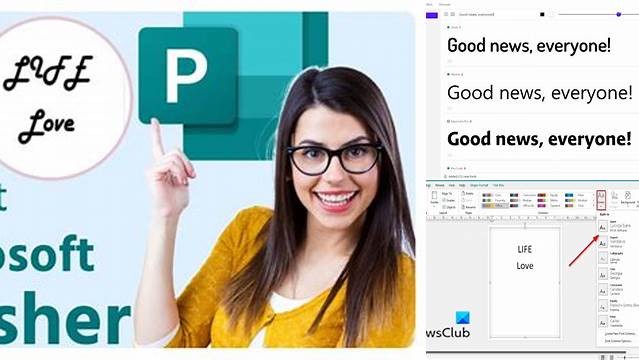
Add Fonts To Publisher On Windows 10: A Simple Guide
Hey guys! Ever felt like your Publisher documents are missing that extra oomph? Maybe the default fonts just aren't cutting it for your creative vision? Well, you're in the right place! In this guide, we're going to dive deep into how to add fonts to Publisher on Windows 10, so you can make your projects truly shine. We'll cover everything from finding the perfect fonts to installing them correctly and using them in your Publisher documents. Trust me, it's easier than you think!
Why Add Fonts to Publisher?
Before we jump into the how, let's talk about the why. Why even bother adding fonts to Publisher? Well, fonts are a crucial element of design. They set the tone, convey emotions, and can significantly impact the readability and overall aesthetic of your documents. Think about it: a playful, handwritten font might be perfect for a party invitation, while a clean, professional sans-serif font is better suited for a business report. By expanding your font library, you gain the power to:
- Express your creativity: A wider selection of fonts means more freedom to experiment and find the perfect match for your project's style and message.
- Enhance readability: Choosing the right font can make your text easier to read and understand, improving the overall user experience.
- Create visual hierarchy: Different fonts can be used to emphasize headings, subheadings, and body text, creating a clear visual structure.
- Maintain brand consistency: Using specific fonts across all your marketing materials helps reinforce your brand identity and create a cohesive look.
- Add a personal touch: Unique fonts can help your documents stand out from the crowd and reflect your personality or brand's unique voice.
In short, adding fonts to Publisher is like giving yourself a design superpower! You'll be able to create more visually appealing, professional-looking documents that truly capture your vision. Now, let's get down to the nitty-gritty and learn how to actually do it.
Finding the Perfect Fonts: Your Font Hunting Adventure
Okay, so you're ready to expand your font horizons. Awesome! But where do you even begin? The world of fonts is vast and varied, with countless options to choose from. It can feel a bit overwhelming, but don't worry, I'm here to guide you on your font hunting adventure. There are many resources available, both free and paid, where you can discover amazing fonts. Here are some of my favorite places to find fonts that will work great in Publisher:
Free Font Resources
- Google Fonts: This is a goldmine of free, open-source fonts that are incredibly easy to use. Google Fonts offers a wide variety of styles, from classic serifs to modern sans-serifs, and everything in between. You can even preview the fonts in different sizes and styles before downloading them.
- Font Squirrel: Font Squirrel is another fantastic resource for free fonts. They carefully curate their collection, ensuring that all fonts are high-quality and licensed for commercial use. This is crucial if you plan to use your fonts for business purposes.
- DaFont: DaFont is a huge repository of fonts, with a vast selection of styles and licenses. However, it's important to note that not all fonts on DaFont are free for commercial use, so be sure to check the license before downloading.
- Creative Fabrica (Freebies Section): Creative Fabrica offers a subscription service for fonts and graphics, but they also have a freebies section with a rotating selection of free fonts. This is a great way to snag some premium-quality fonts without spending any money.
- MyFonts (Free Fonts Section): MyFonts is a well-known font marketplace, and they also have a section dedicated to free fonts. The selection is smaller than some other sites, but the quality is generally very high.
When browsing these sites, take your time and explore different styles. Use keywords to narrow your search (e.g., "script fonts," "bold fonts," "modern fonts"). Don't be afraid to download a few fonts and try them out in Publisher to see how they look. Remember, the best font is the one that perfectly complements your design and message.
Paid Font Resources
While there are plenty of fantastic free fonts available, sometimes you need something a little more unique or professional. Paid font resources offer a wider selection of high-quality fonts, often with more extensive licensing options. If you're serious about design or need fonts for commercial projects, investing in paid fonts can be a worthwhile investment. Some popular paid font resources include:
- MyFonts: As mentioned earlier, MyFonts is a leading font marketplace with a vast collection of fonts from independent designers and foundries.
- Fontspring: Fontspring is another great option for purchasing fonts. They offer a user-friendly interface and a wide selection of high-quality fonts.
- Creative Market: Creative Market is a marketplace for all kinds of design assets, including fonts, graphics, and templates. They often have sales and bundles, making it a great place to find deals.